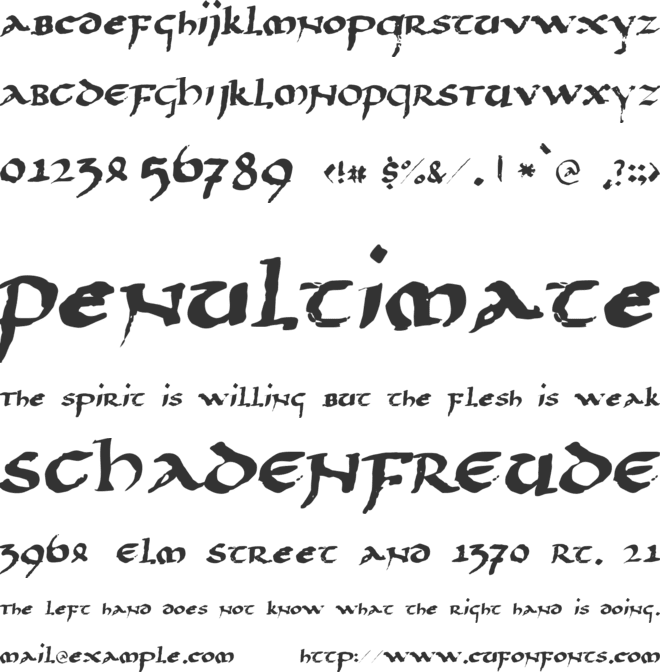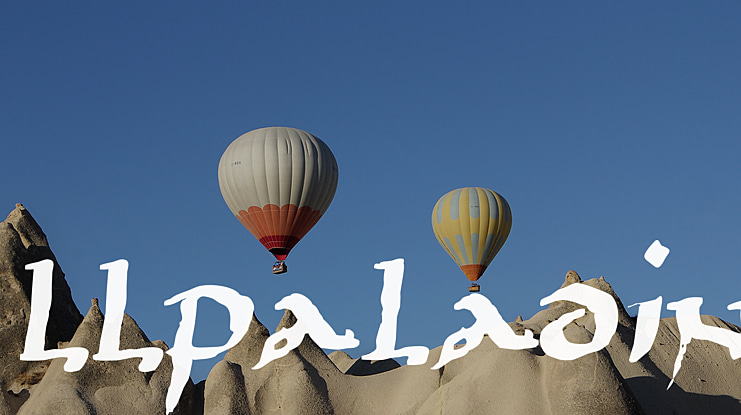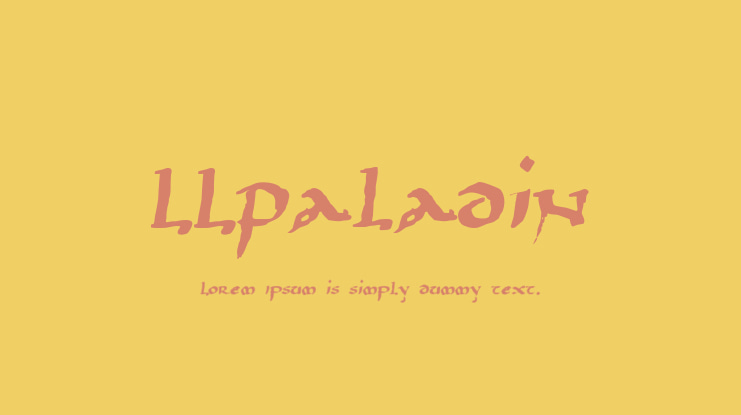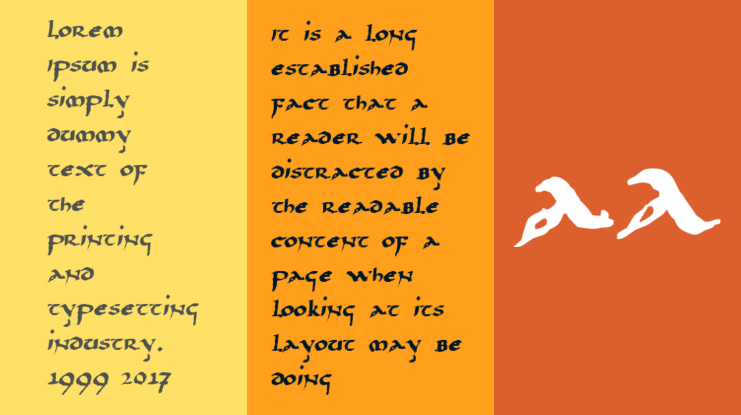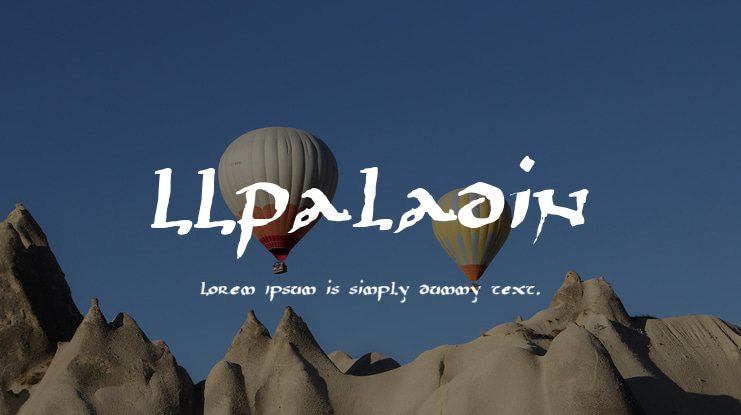
LLPaladin Font
written during the callygraphy workshop at JuniorUni and developed in Glyphs at the HMKW University of Applied Sciences in spring 2014.